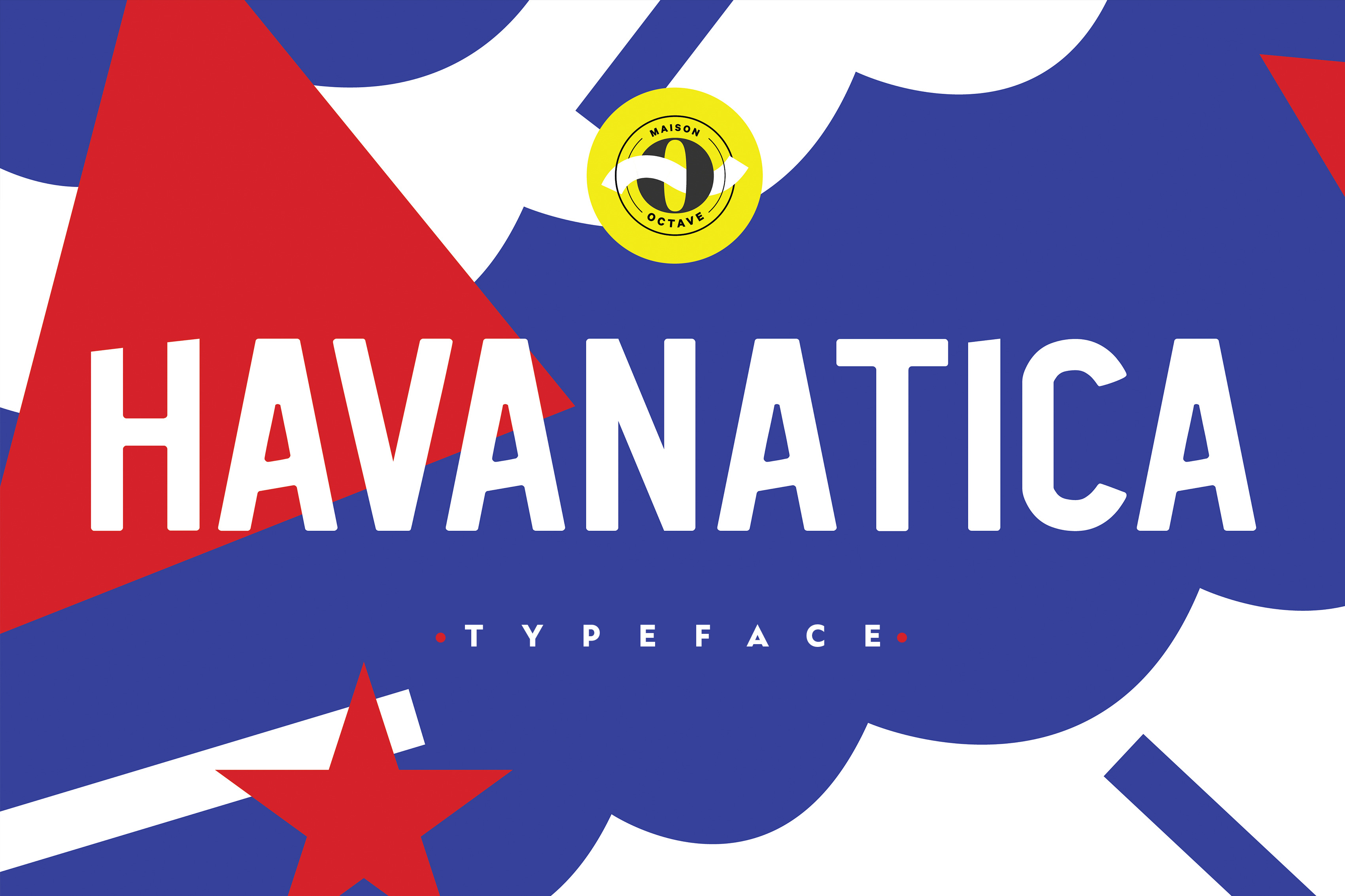
Havanatica Font
¿Qué bolá contigo?! Havanatica is what a classic Cuban font would be. It's bold, fun, expressive and certainly not perfect. As soon as you will start typing, you will realise that the letters are not perfectly horizontally aligned to give it a dancing and fun style. It's been drawn using pictures of classic typographic cuban painting from the walls of La Havane, Cuba's capital.
The font includes all accents from every language to make it international, numbers and special characters. It also comes with the abstract artwork you can see in the preview and the letters in vector so you can play with the font and get creative!